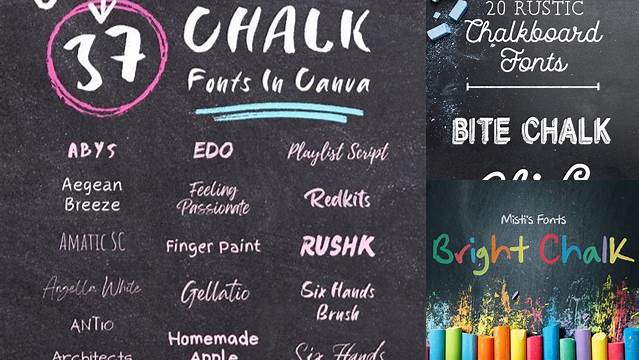
Chalk Fonts: Your Guide To Fun & Creative Designs
Hey guys, let's talk about something super cool and versatile: chalk fonts! They're everywhere these days, from trendy coffee shop menus to eye-catching social media graphics. Chalk fonts bring a unique, hand-drawn aesthetic that can add a touch of personality and charm to any project. In this article, we'll dive deep into the world of chalk fonts, exploring their uses, best practices, and how to find the perfect one for your needs. Whether you're a seasoned designer or just starting out, you'll find plenty of inspiration and practical tips here.
What are Chalk Fonts and Why are They So Popular?
Chalk fonts, as the name suggests, mimic the appearance of chalk lettering. They capture the textured look and feel of a chalkboard, giving a sense of warmth, approachability, and a handmade quality. The popularity of chalk fonts has skyrocketed in recent years, and for good reason. In a world dominated by clean, digital designs, chalk fonts offer a refreshing alternative. They inject a dose of personality and creativity that can help your designs stand out from the crowd. They evoke a sense of nostalgia, creativity, and fun, making them a great choice for a wide range of applications.
So, what makes these fonts so popular? Well, first off, they're incredibly versatile. You can use them for everything from creating logos and website headers to designing invitations, posters, and social media posts. They also work well in both digital and print formats. Secondly, chalk fonts can instantly add a sense of authenticity and a human touch to your work. They look less perfect and more relatable, which can make your audience feel more connected to your message. They can also be a great way to inject personality into your brand. Furthermore, with the rise of handcrafted and artisanal products, the demand for fonts that reflect this aesthetic has also increased, and that's exactly what chalk fonts deliver. They help brands connect with consumers who value uniqueness, creativity, and a personal touch. Moreover, they can be easily paired with other design elements, such as illustrations, textures, and vintage effects, to create visually stunning designs. The use of chalk fonts can evoke feelings of creativity, nostalgia, and warmth, which makes them perfect for various projects. Chalk fonts are more than just fonts; they're a design trend that reflects a broader cultural shift towards valuing authenticity, handcrafted quality, and human connection.
Where Can You Use Chalk Fonts?
Alright, let's explore the practical side of things: where can you actually use chalk fonts? The beauty of these fonts is their flexibility – they can fit into a ton of different projects. Chalk fonts are incredibly versatile, which is why they're so popular. They can be used in various projects such as cafe menus, wedding invitations, social media graphics, posters, and more.
Here are some popular use cases to get your creative juices flowing:
- Menus and Signage: Think about all those trendy cafes and restaurants with chalkboards displaying their daily specials. Chalk fonts are a perfect fit for this. They add a rustic and inviting feel, making customers feel welcome.
- Invitations and Announcements: If you're planning a wedding, a birthday party, or any other special event, a chalk font can give your invitations a personal, hand-crafted touch. They're great for creating a warm and inviting atmosphere.
- Social Media Graphics: Want to make your social media posts pop? Chalk fonts are your secret weapon. They grab attention and make your content more shareable. Use them for quotes, announcements, or to promote a product or service. They are perfect for creating eye-catching posts on platforms like Instagram, Facebook, and Pinterest.
- Logos and Branding: Want a brand that feels friendly, approachable, and authentic? Chalk fonts can help you create a memorable logo and branding identity. They work well for businesses in the food, retail, and creative industries.
- Posters and Flyers: Whether you're promoting an event or a product, chalk fonts can help you create visually appealing posters and flyers that get noticed. Use them to create visually appealing posters and flyers.
- Web Design: While they might not be the best choice for body text, chalk fonts can be used for headings, call-to-actions, and other design elements to add a unique touch to your website.
- Educational Materials: Use them for creating fun and engaging educational materials, such as posters, worksheets, and presentations.
The possibilities are endless! The key is to use chalk fonts in a way that complements your overall design and message. With a little creativity, you can use these fonts to create stunning and memorable designs.
Choosing the Right Chalk Font: Key Considerations
Okay, now that we know what chalk fonts are and where you can use them, let's talk about how to choose the right one. Picking the perfect font can make or break your design, so it's important to consider a few key factors. You will need to consider various factors such as style, readability, licensing, and compatibility.
Here's a breakdown of what to consider:
- Style: Chalk fonts come in a huge variety of styles, from thick and bold to thin and delicate. Consider the overall vibe of your project and choose a font that complements it. Are you going for a rustic, vintage look? Or something more modern and playful? Your choice should align with the style of your project. Some fonts have a more realistic chalky texture, while others have a cleaner, more digital feel. Experiment with different styles to find what best suits your needs.
- Readability: While chalk fonts are visually appealing, some can be difficult to read, especially at smaller sizes. Ensure your chosen font is readable, particularly if it's being used for important information. Test your font at the size you'll be using it to make sure the text is clear and easy to understand. Bold fonts are usually easier to read than thin, delicate ones. For body text, it's often best to avoid overly elaborate or decorative chalk fonts, as these can be challenging to read in larger blocks of text.